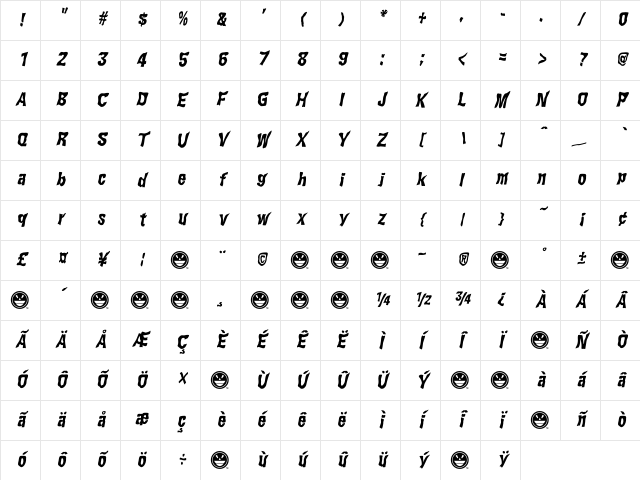
WILD2 Ghixm Bold Italic Free Font
WILD2 Ghixm Bold Italic
Design Context for WILD2 Ghixm
WILD2 Ghixm is a composed and adaptable typeface that performs quietly and consistently across a wide range of design contexts. The slanted form adds forward momentum and visual energy. Its bold stroke weight gives it real presence on the page.